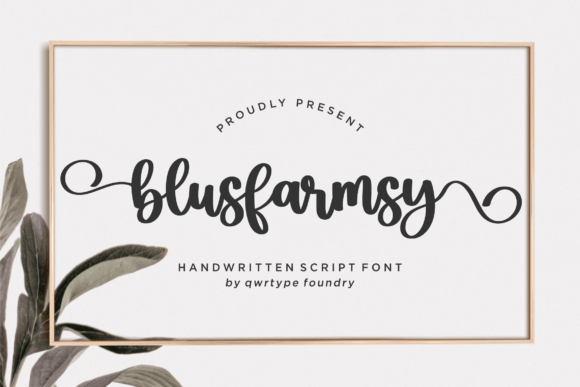
The Blusfarmsy Font: A Handwritten Script to Elevate Your Designs
Have you ever been in the middle of a design project, and suddenly, you’re stuck on finding the perfect font? I recall a recent experience where I was working on a branding project for a crafty client, and I just couldn’t find a font that captured the playful, yet elegant vibe they were looking for. That’s when I stumbled upon the Blusfarmsy font, and it completely transformed my design. In this article, I’ll share my journey with Blusfarmsy, its features, and how you can make the most of this beautiful handwritten script font.
What Makes Blusfarmsy Special?
Blusfarmsy is a stunning handwritten script font that’s perfect for a variety of design projects, including product packaging, branding, magazines, social media, weddings, or simply adding a personal touch to your artwork. One of the standout features of Blusfarmsy is its PUA (Private Use Area) encoding, which allows you to access an array of amazing glyphs and ligatures with ease.
An Honest Review of Blusfarmsy
What I Love About Blusfarmsy
• ✨ Elegant and playful script style that’s perfect for creative projects
• ✅ PUA encoded for easy access to glyphs and ligatures
• 💫 Highly versatile and can be used for various design applications
• 🎨 Beautifully crafted to add a personal touch to your designs
While Blusfarmsy is an excellent font, there are a few minor considerations to keep in mind:
• ⚠️ Some users might find the font a bit too ornate for very formal or traditional designs
• 🤔 Limited availability of condensed or bold weights, which might limit its use in certain typographic contexts
The Story Behind Blusfarmsy
While the origins of Blusfarmsy are shrouded in mystery, it’s clear that the font was crafted with love and attention to detail. Imagine a designer who spent countless hours perfecting the flow and rhythm of handwritten script, resulting in a font that’s both elegant and approachable. Whether or not that’s the true story, Blusfarmsy certainly feels like a labor of love.
Q: What is PUA encoding, and why is it important?
A: PUA (Private Use Area) encoding allows font designers to include additional characters, glyphs, and ligatures that aren’t part of the standard Unicode character set. This means you can access a wider range of typographic features in Blusfarmsy.
Q: Is Blusfarmsy suitable for body text?
A: While Blusfarmsy is a beautiful font, it’s primarily designed for display and headline use due to its ornate nature. For body text, you might prefer a more straightforward, readable font.